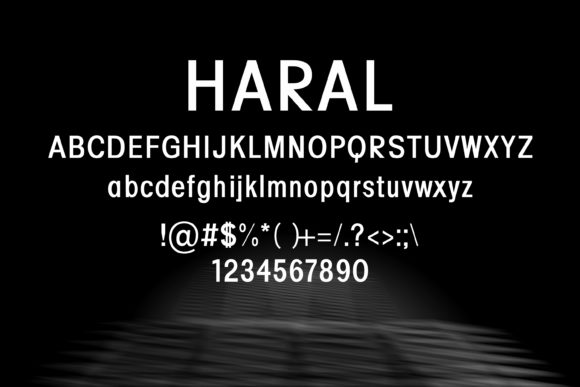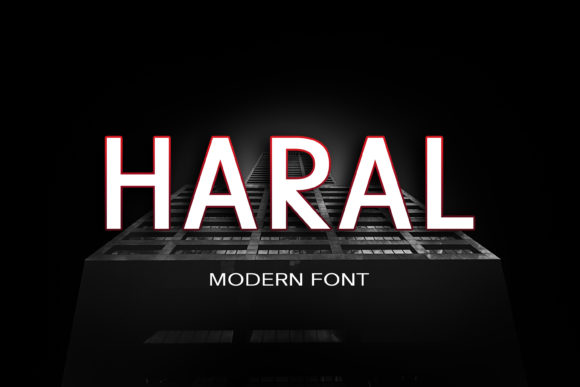
Discover the Bold and Cool Haral Font: Elevate Your Designs with Modern Simplicity
In the world of typography, fonts play a crucial role in conveying messages, expressing creativity, and setting the tone for a brand or design. Among the numerous fonts available, Haral Font stands out for its bold, cool, and unique sans serif style. In this article, we’ll dive into the features, benefits, and uses of Haral Font, and explore how its modern simplicity can inspire your designs.
What is Haral Font?
Haral Font is a sans serif font that boasts a distinctive and contemporary look. Its clean lines, geometric shapes, and bold weight make it perfect for designs that require a strong visual impact. The font’s simplicity is its greatest strength, allowing it to adapt seamlessly to various design contexts, from digital media to print materials.
Key Features of Haral Font
• Bold and Cool: Haral Font’s bold weight and unique style make it an excellent choice for headlines, titles, and emphasis text.
• Modern Simplicity: The font’s clean and minimalist design ensures that your message is conveyed clearly and effectively.
• Versatile: Haral Font can be used in a wide range of design applications, including logos, branding, posters, flyers, and digital media.
• Easily Readable: The font’s clear and simple structure ensures that it remains readable even at small sizes.
Haral Font’s modern simplicity makes it an excellent choice for designers and crafters looking to create visually appealing and effective designs. Here are a few ways you can use Haral Font to elevate your designs:
• Create Striking Headlines: Use Haral Font to craft bold and attention-grabbing headlines that draw the reader’s eye.
• Develop a Strong Brand Identity: Haral Font’s unique style can help you establish a distinctive brand voice and visual identity.
• Design Engaging Posters and Flyers: The font’s bold and cool style makes it perfect for creating eye-catching posters and flyers that grab attention.
• Enhance Your Digital Media: Use Haral Font to add a modern and sleek touch to your digital media, including social media graphics, website headers, and email newsletters.
Tips for Using Haral Font Effectively
To get the most out of Haral Font, here are a few tips to keep in mind:
• Pair it with Other Fonts: Combine Haral Font with other fonts to create a visually appealing contrast and add depth to your design.
• Experiment with Colors: Try pairing Haral Font with different colors to create a unique and eye-catching effect.
• Use it Consistently: Use Haral Font consistently throughout your design to create a cohesive and professional look.
Haral Font is a bold and cool sans serif font that offers a unique and modern simplicity. Its versatility, readability, and striking style make it an excellent choice for designers and crafters looking to elevate their designs. Whether you’re creating a logo, poster, or digital media, Haral Font is sure to inspire your creativity and help you achieve your design goals.